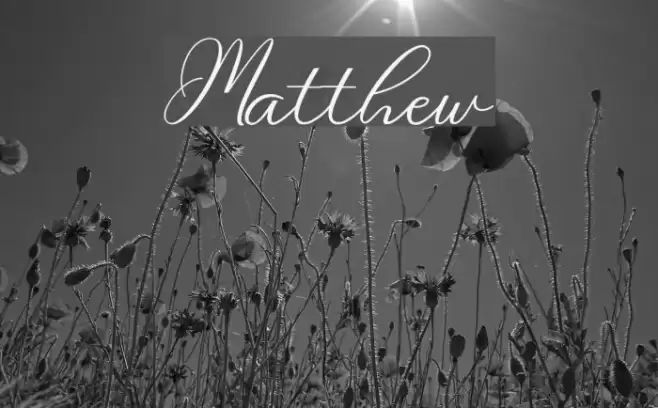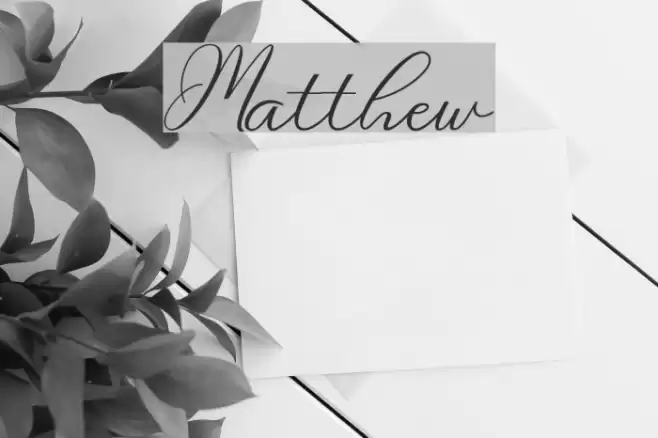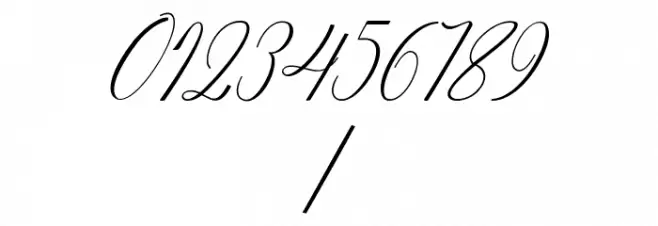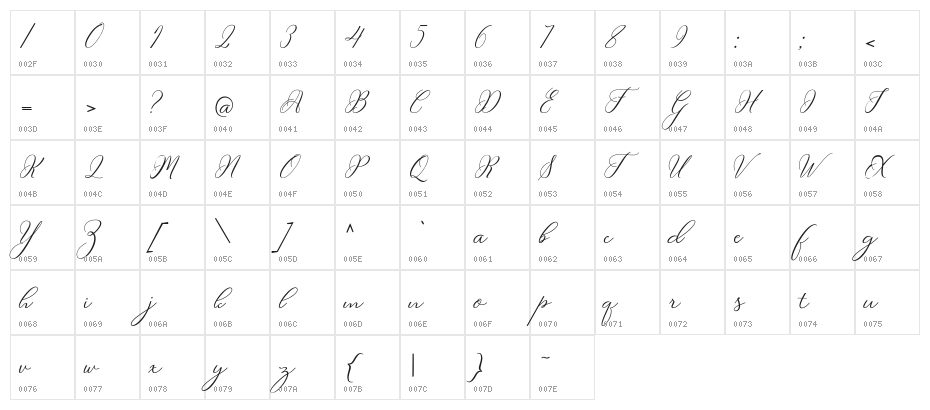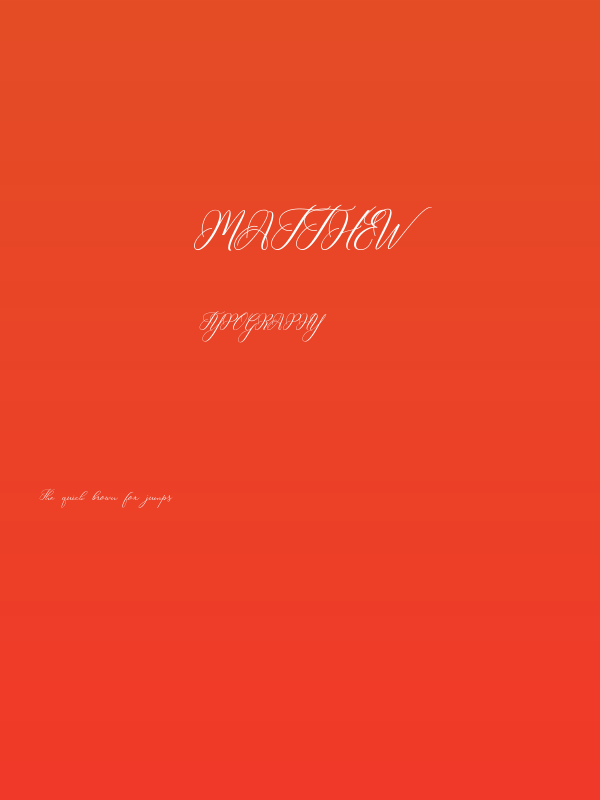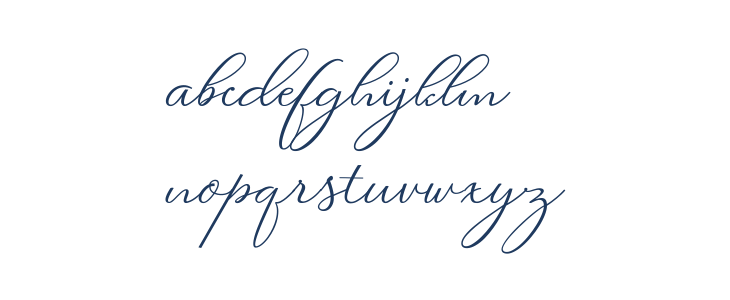
Matthew Font
Matthew Description
This elegant script font features flowing, interconnected letters with a classic and sophisticated appearance. The uppercase letters are ornate and sweeping, while the lowercase letters maintain a graceful continuity. The numerals are stylishly curved, complementing the overall aesthetic. This font exudes a sense of refinement and is perfect for formal invitations, branding, and decorative purposes. The strokes are smooth and fluid, with a consistent thickness that adds to its readability and charm.
An elegant and flowing script font with interconnected letters and a classic style from Uncategorized fonts.
- Proposed Projects: Ideal for wedding invitations, luxury branding, elegant stationery, and decorative signage.
- Overall Style: Classic
- Use Case: Invitations, Branding, Decorative